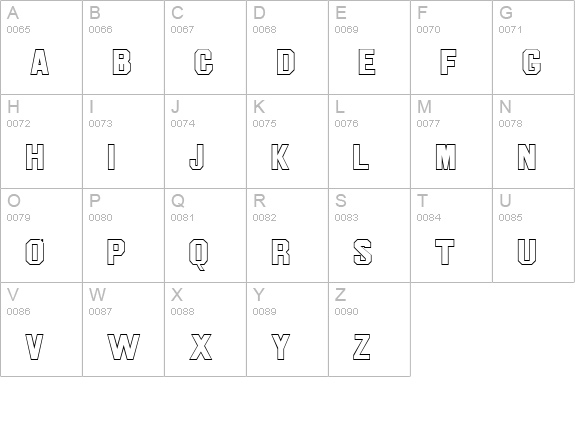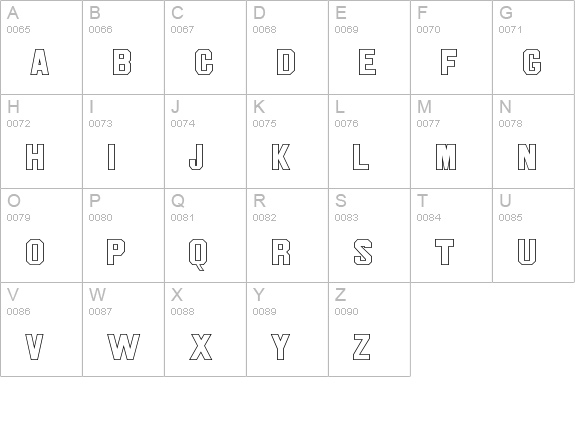
Introducing Jim DandyOutlines font, a unique and eye-catching typeface that is perfect for adding a touch of creativity to your projects. With its playful and whimsical design, Jim DandyOutlines is sure to make a statement and stand out from the crowd. This font is not only visually appealing but also versatile, making it suitable for a wide range of design projects such as posters, logos, branding, and more. Whether you're looking to add a fun and quirky element to your designs or simply want to make a bold statement, Jim DandyOutlines is the perfect choice. The best part is that Jim DandyOutlines font is completely free to download at FontsMarket.com. So go ahead and give your projects a fresh and dynamic look with this fantastic font today!